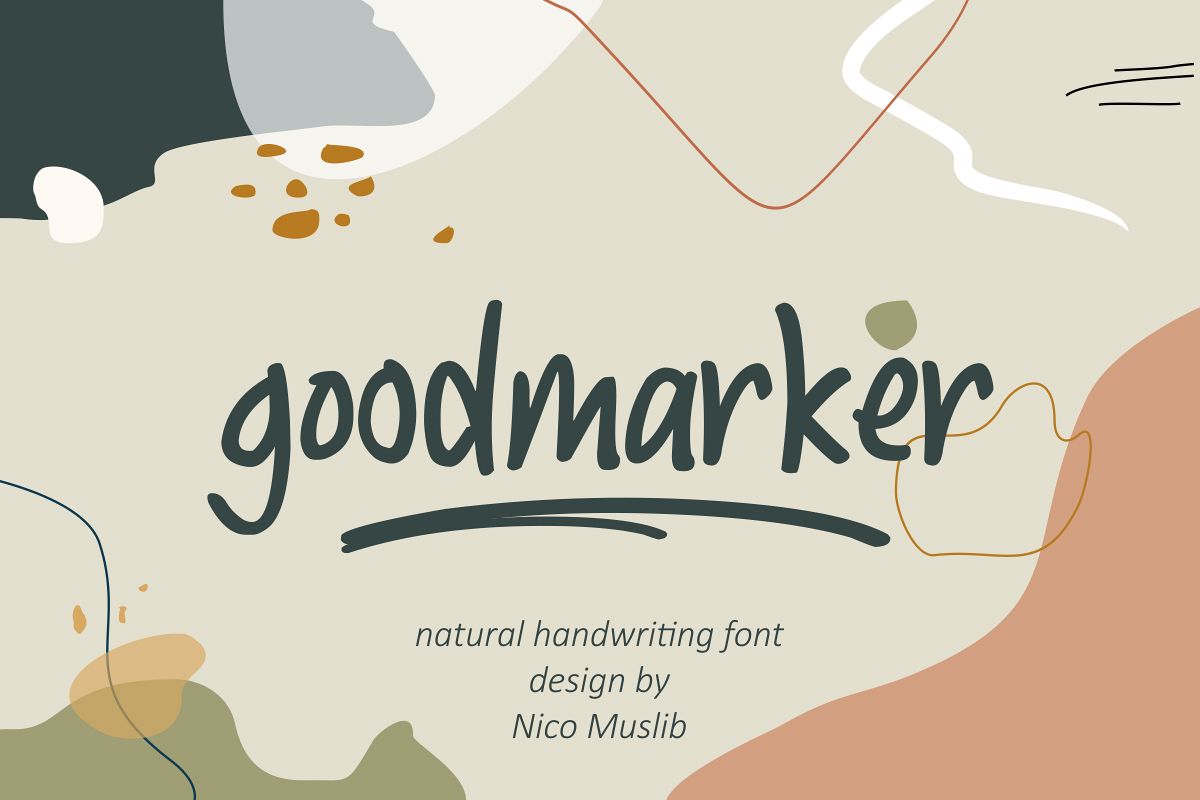
Goodmarker Handwritten Font
Goodmarker
ABOUT THIS FONT
Meet Goodmarker handwritten ! This scripty-serif font is bouncy, charming and
perfect for many design projects! I've made this font as smooth as
possible, reducing the amount of nodes in each glyph to ensure optimal
cutting with Cricut, Silhouette or other craft machines.